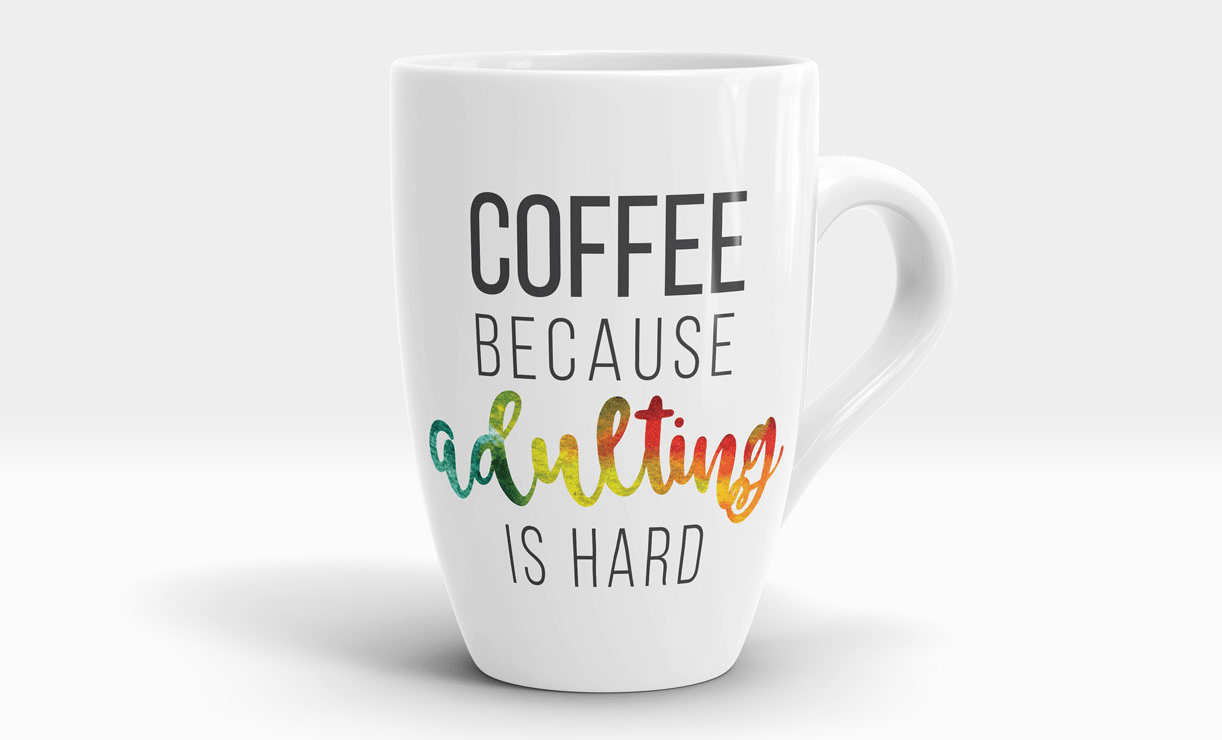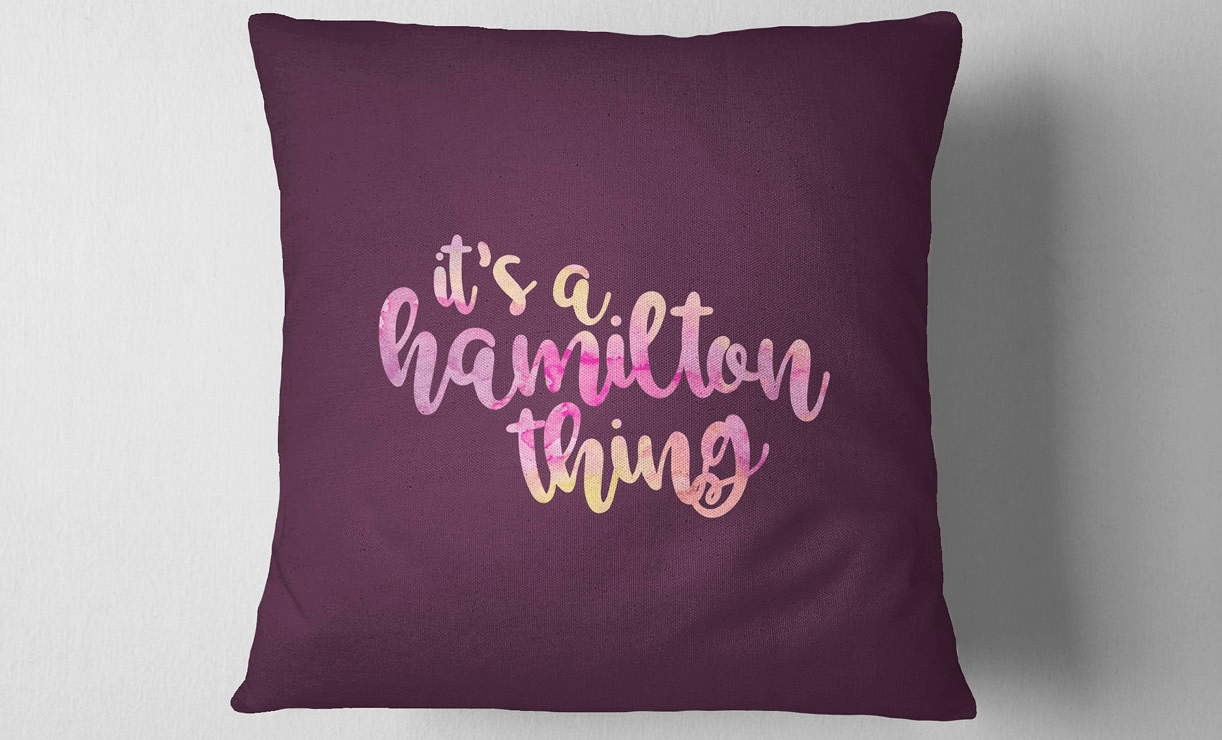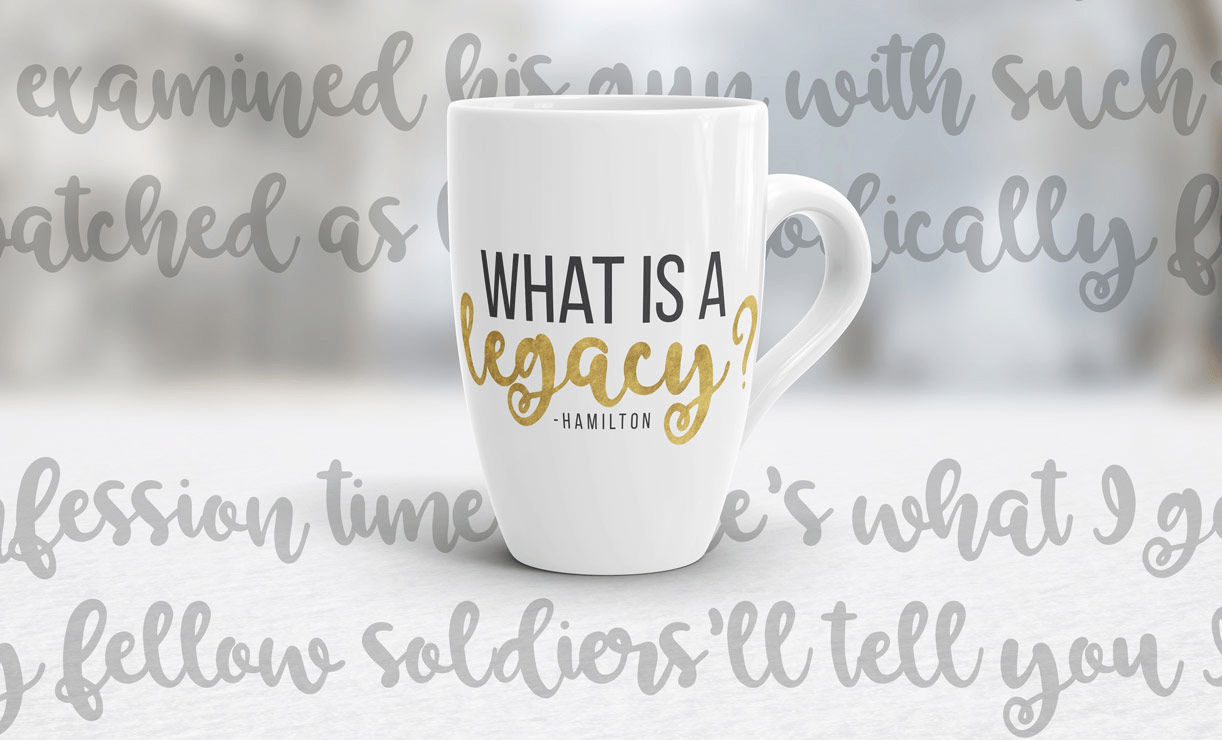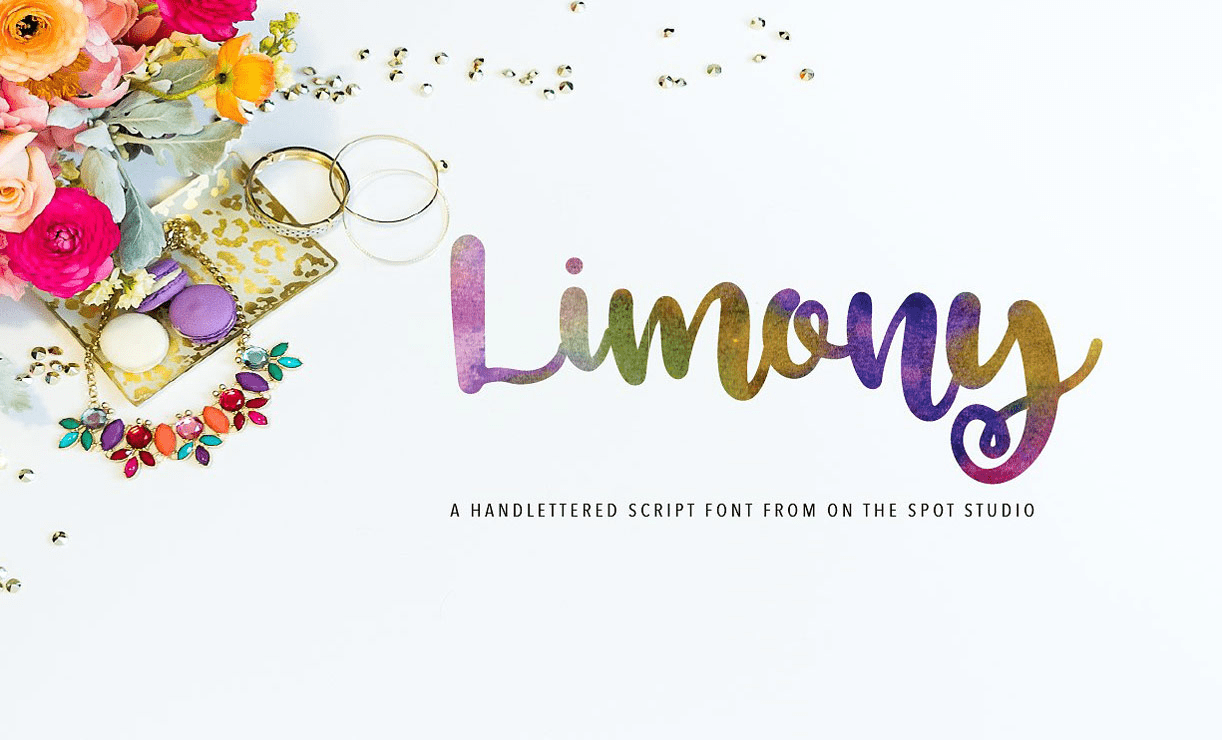
HomeFont BrosScripts: CasualLimony Script Scripts: Casual Limony Script FacebookXPinterestWhatsApp 1 of 4 About Limony Script Say hello to Limony Script! Limony is a fun and quirky script that would be lovely for logos, invitations, signs, tees & more! Includes letters, accented letters, numbers, punctuation and more.  DOWNLOAD NOW People also explored Belryna Font Present Lover Font Masterland | Script Font Barian Font Winter Time Font Ukiyo MInd Cutta Font Able Lingo BSL 5 Font Cookies Snow Font 260 0 TagsLimony Script Font Previous articleRepublica BananaNext articleBarnaby LEAVE A REPLY Cancel reply Comment: Please enter your comment! Name:* Please enter your name here Email:* You have entered an incorrect email address! Please enter your email address here Website: Save my name, email, and website in this browser for the next time I comment. Personal Use Free Merak Personal Use Free Read more about this font Beattingvile Personal Use Free Read more about this font Uchiyama Personal Use Free Read more about this font Kumadinya Personal Use Free Read more about this font BLOG Using Fonts in Digital Marketing: Tips to Strengthen Your Brand Identity In the realm of digital marketing, every visual element plays a crucial role in shaping a brand's identity, and fonts are no exception. The... Best Fonts for YouTube Videos: Make Your Thumbnails Stand Out Fonts That Capture the Spirit of New York City Free vs Paid Fonts: Why Investing in Premium Fonts Is Worth It